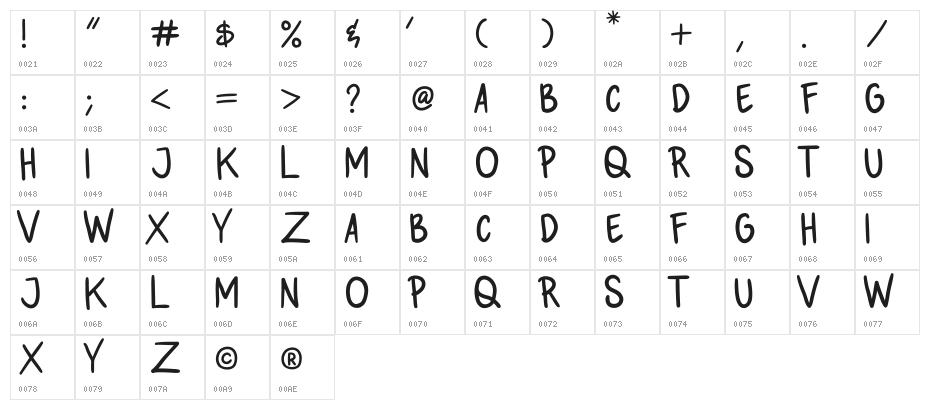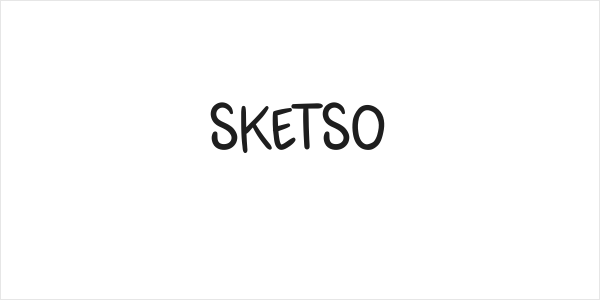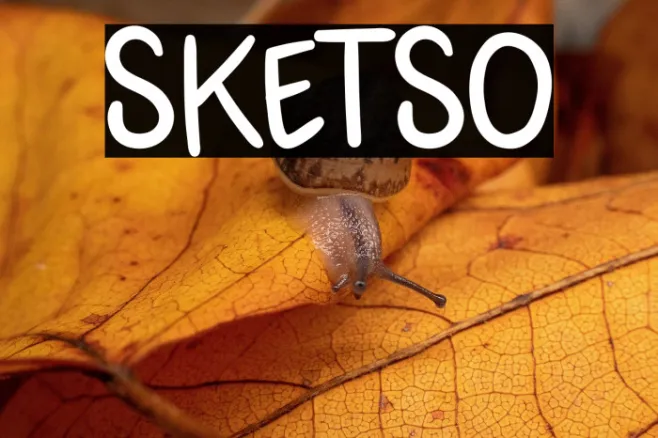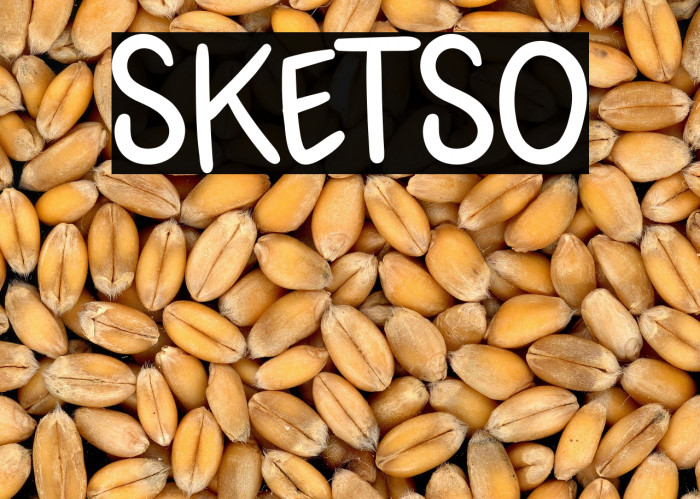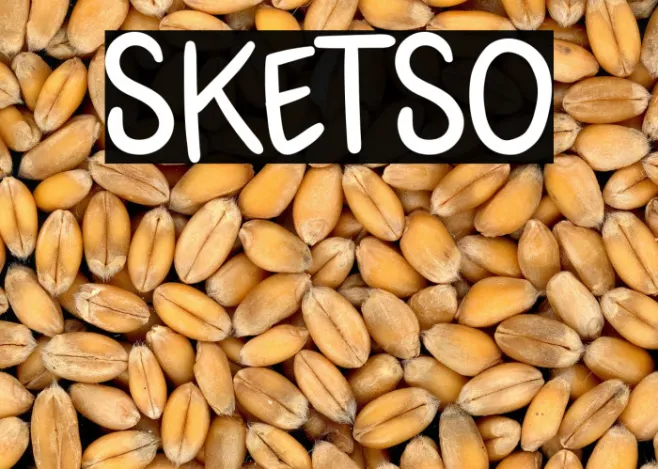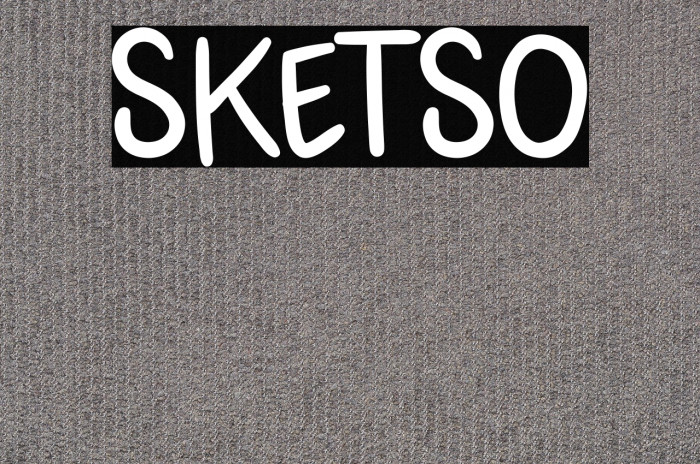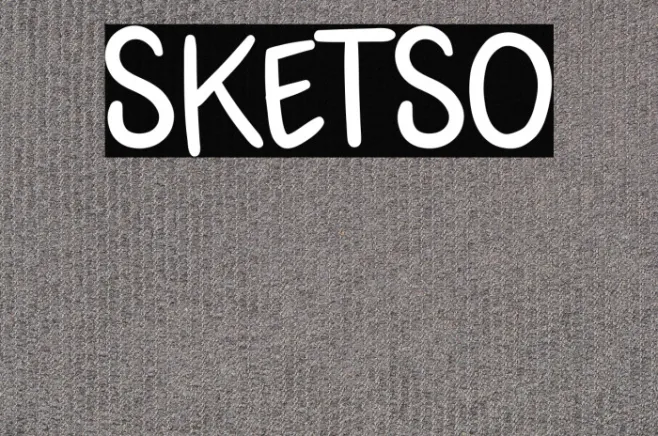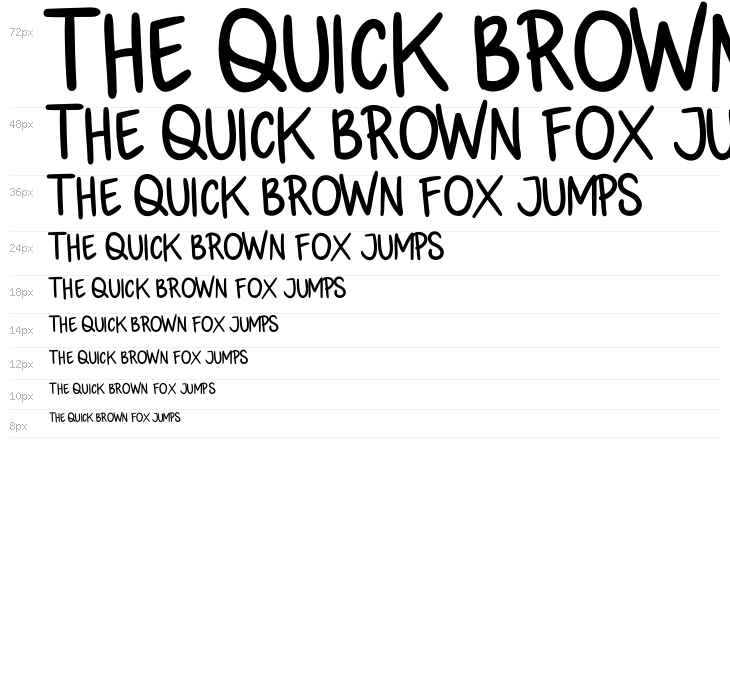
SKETSO Font
SKETSO Description
This font exhibits a playful and informal style, characterized by its handwritten appearance. The letters are bold and rounded, with a consistent stroke width that gives it a casual and approachable feel. The uppercase and lowercase letters maintain a uniform height, contributing to a cohesive look. The spacing between characters is slightly wide, enhancing readability while maintaining its whimsical charm. The font includes a full set of uppercase and lowercase letters, numbers, and a variety of special characters, making it versatile for different design needs.
| Proposed Projects | Ideal for children's books, greeting cards, playful branding, and informal invitations. |